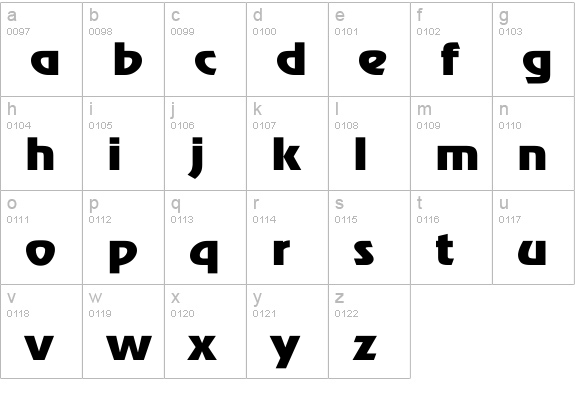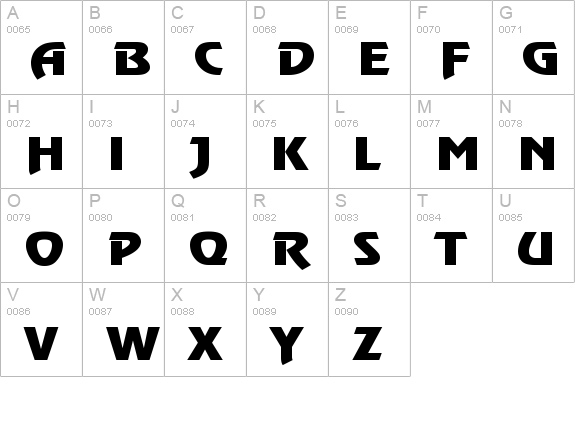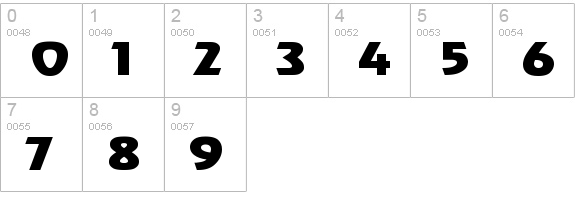
Revue Wd is a stunning font that seamlessly combines elegance with a touch of modernity. Its clean lines and refined curves make it perfect for a wide range of design projects, from fashion magazines to luxurious branding. With its unique letterforms and exquisite attention to detail, Revue Wd stands out as a timeless typeface that exudes sophistication. This font offers a remarkable versatility, allowing it to effortlessly adapt to various contexts. Whether you're designing a logo, creating eye-catching headlines, or crafting an elegant invitation, Revue Wd will elevate your work to new heights. Its legibility and readability ensure that your message is conveyed with utmost clarity and style. And the best part? Revue Wd is absolutely free! It is freely available to download at FontsMarket.com, a reputable platform for high-quality fonts. This means that you can access this exceptional font without any cost, making it a truly valuable asset for designers and creatives alike. So go ahead and explore the endless possibilities that Revue Wd has to offer. Let its timeless beauty and versatility elevate your designs to new levels of excellence. Download it today from FontsMarket.com and unlock a world of creative potential.